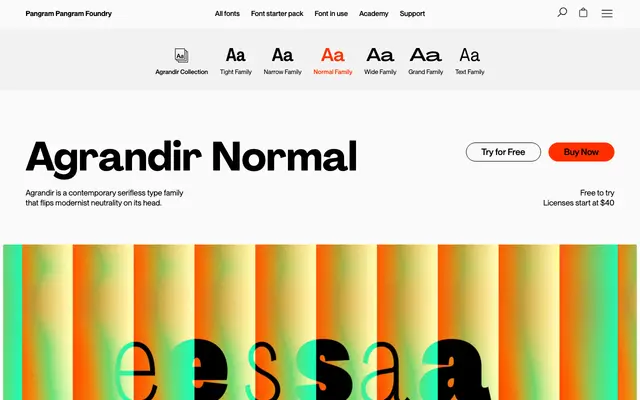
Agrandir Normal
The default width of Alex Slobzheninov's Agrandir, the entry point into the wider system.
The Normal width of Agrandir by Alex Slobzheninov, the family's default proportions. Fourteen styles span seven weights with italics and 443 glyphs each. Stylistic presets, single-storey a, alternate y, u, G, K and the straight-tail R run across the family, letting Normal sit cleanly with Tight, Narrow, Wide and Grand.